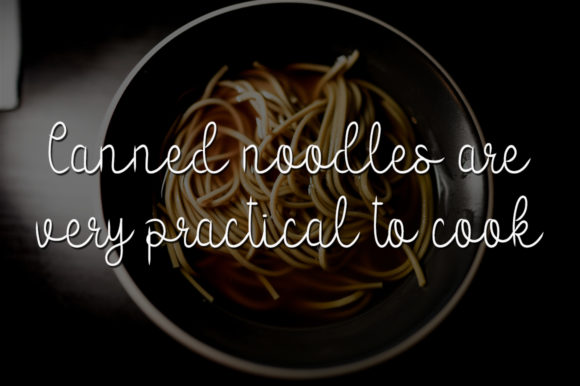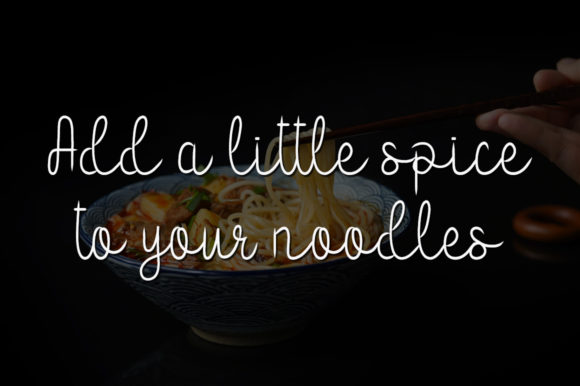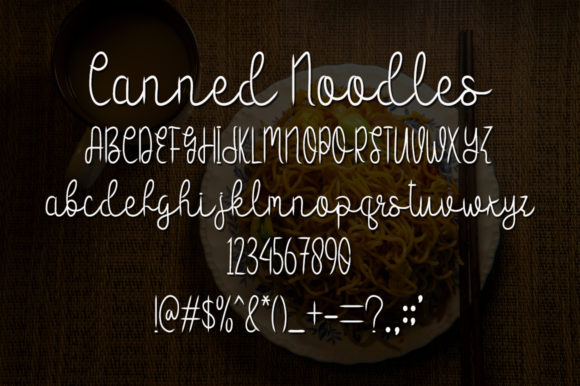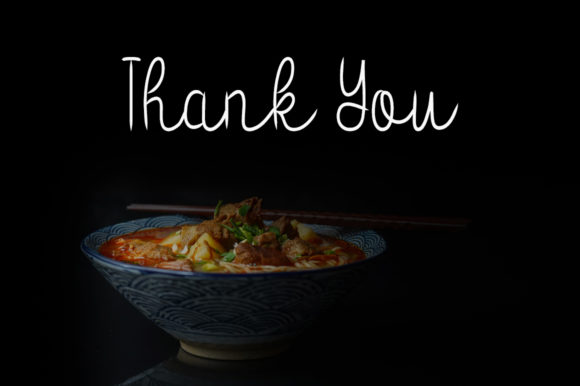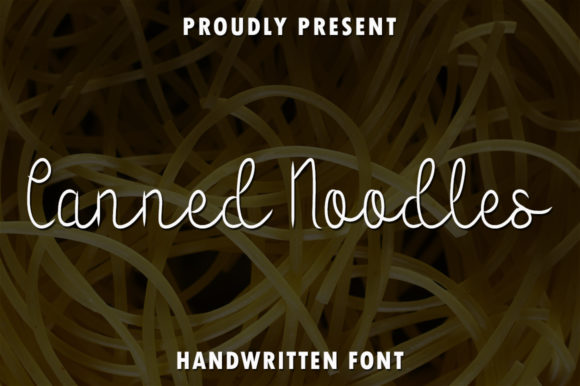
Canned Noodles Font: A Deliciously Chic Handwritten Font
Are you on the hunt for a font that’s both stylish and versatile? Look no further than Canned Noodles Font! This neat and flowing handwritten font is perfect for a wide range of design projects, from branding and product packaging to invitations, quotes, t-shirts, labels, posters, and logos.
The Characteristics of Canned Noodles Font
Canned Noodles Font is a beautifully crafted handwritten font that’s characterized by its flowing, cursive strokes and neat letterforms. The font has a friendly, approachable feel that’s perfect for designs that require a personal touch. The letters are carefully crafted to ensure that they are legible and easy to read, making it an excellent choice for both digital and print designs.
Why Choose Canned Noodles Font?
So, why should you choose Canned Noodles Font for your next design project? Here are just a few reasons why this font stands out from the crowd:
- Versatility: Canned Noodles Font is an incredibly versatile font that can be used for a wide range of design projects. Whether you’re creating a logo, branding materials, or marketing collateral, this font is sure to impress.
- Legibility: The font is carefully crafted to ensure that it’s easy to read, even at small sizes. This makes it perfect for designs that require a lot of text, such as blog posts, articles, and social media graphics.
- Uniqueness: Canned Noodles Font has a unique, handcrafted feel that’s sure to make your designs stand out from the crowd. The font is not too formal or too casual, making it perfect for designs that require a touch of elegance and sophistication.
How to Use Canned Noodles Font
Canned Noodles Font is incredibly easy to use, even for designers who are new to typography. Here are a few tips for getting the most out of this amazing font:
- Pair it with other fonts: Canned Noodles Font pairs perfectly with other fonts, such as sans-serif fonts like Arial or Helvetica. Experiment with different font combinations to create a unique look that’s all your own.
- Use it for headings and titles: The font is perfect for headings and titles, where its flowing strokes and neat letterforms can really shine. Use it to create eye-catching headlines that grab your audience’s attention.
- Add some flair: Canned Noodles Font is a font that’s all about flair and personality. Don’t be afraid to add some flair to your designs by using the font’s swashes and flourishes.
Design Ideas Using Canned Noodles Font
Canned Noodles Font is an incredibly versatile font that can be used for a wide range of design projects. Here are a few ideas to get you started:
- Branding and packaging: Use Canned Noodles Font to create eye-catching branding and packaging materials that stand out on store shelves.
- Invitations and greeting cards: The font is perfect for invitations and greeting cards, where its flowing strokes and neat letterforms can add a touch of elegance and sophistication.
- T-shirts and apparel: Canned Noodles Font is a great choice for t-shirts and apparel, where its unique, handcrafted feel can really shine.
- Posters and flyers: Use the font to create eye-catching posters and flyers that grab your audience’s attention.
Canned Noodles Font is a deliciously chic handwritten font that’s perfect for designers and crafters who want to add a touch of elegance and sophistication to their designs. With its flowing strokes, neat letterforms, and unique, handcrafted feel, this font is sure to impress. Whether you’re creating branding materials, invitations, t-shirts, or posters, Canned Noodles Font is an excellent choice. So why wait? Download Canned Noodles Font today and start creating your own deliciously chic designs!